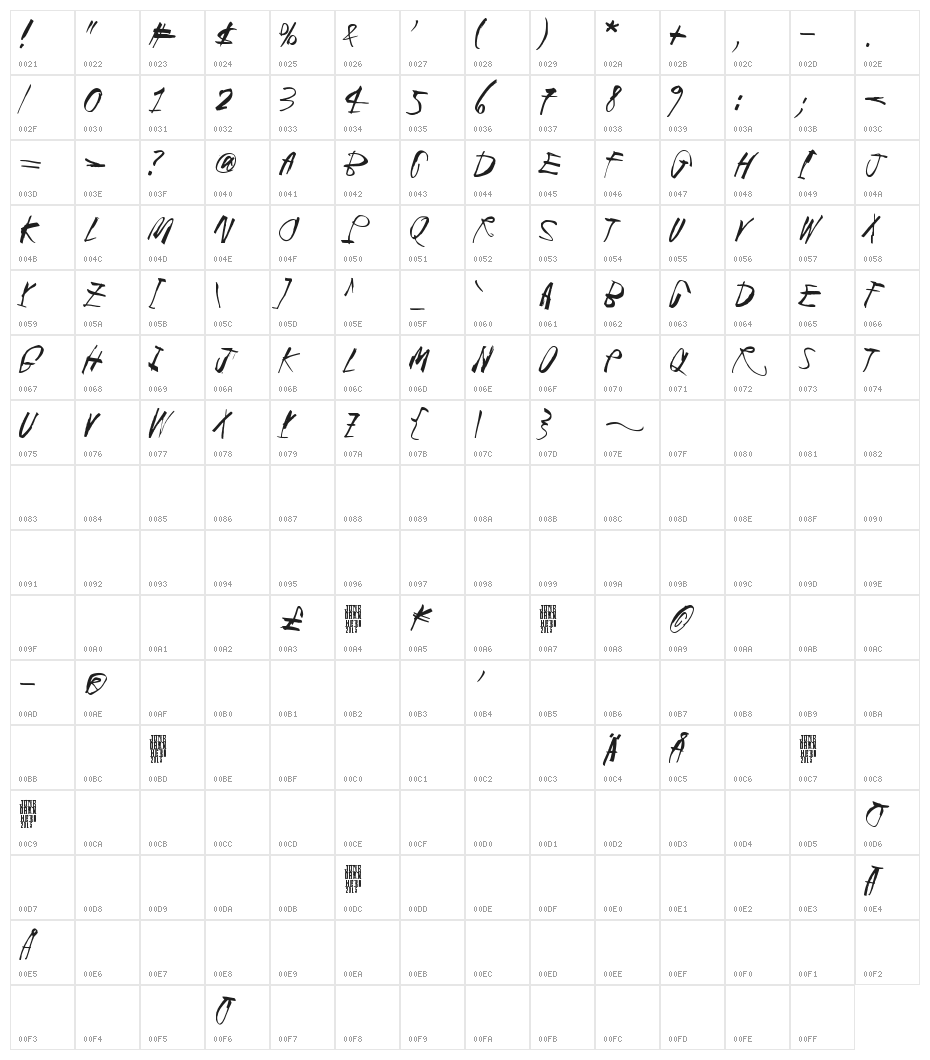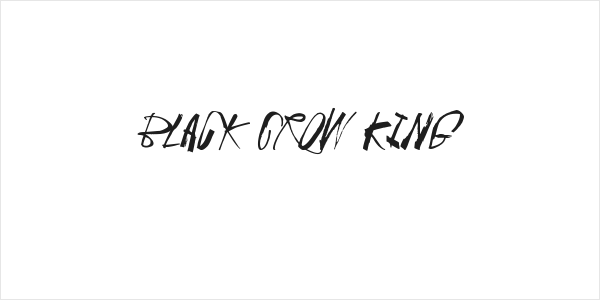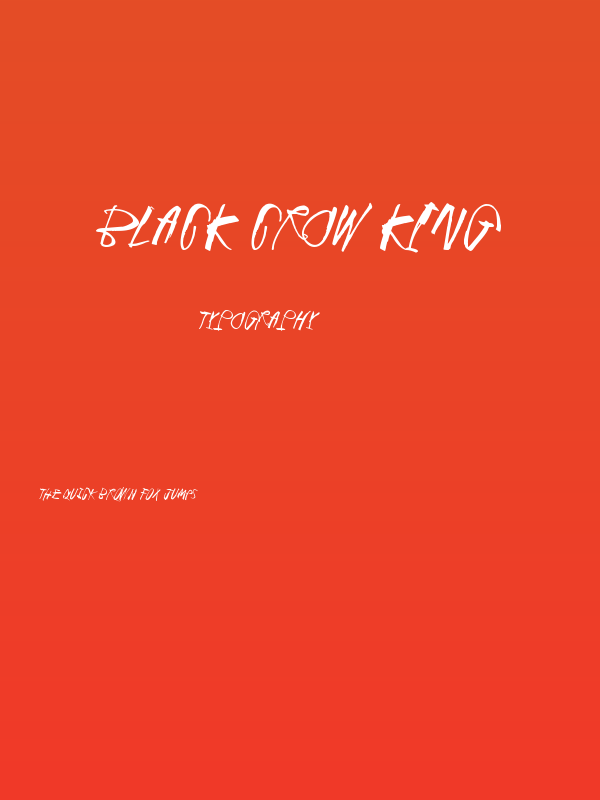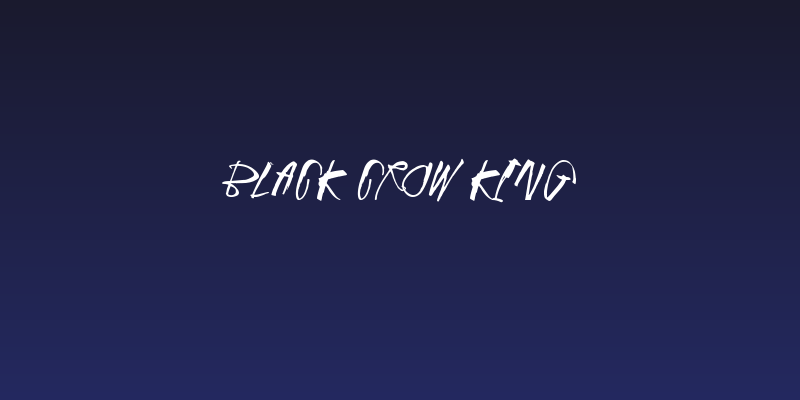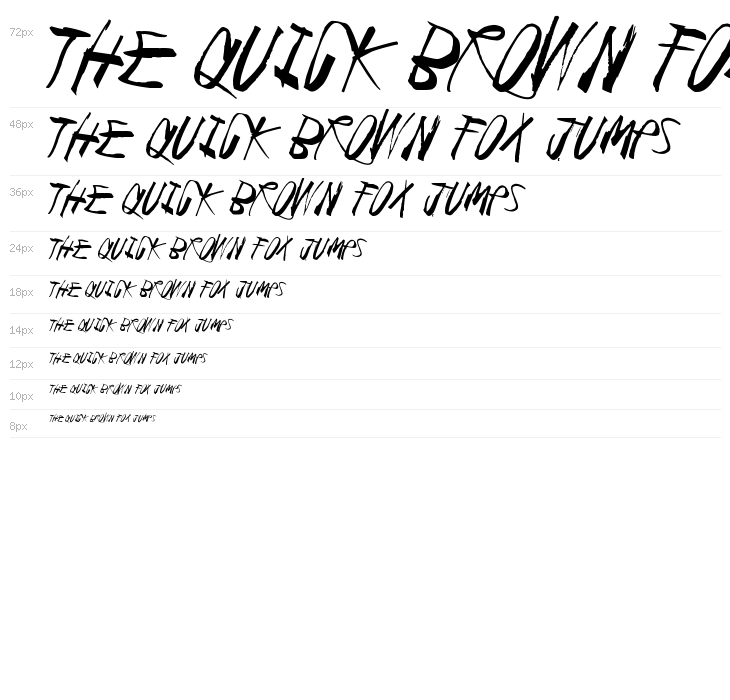
Black Crow King Font
Black Crow King Description
This font exudes a raw, edgy aesthetic with its bold, brush-like strokes and dynamic, irregular forms. Each character appears hand-drawn, conveying a sense of movement and energy. The uppercase letters are particularly striking, with exaggerated curves and sharp angles that create a sense of urgency and intensity. The lowercase letters maintain this expressive style, offering a cohesive look across the typeface. Numbers and special characters are equally bold, ensuring consistency throughout. This font is perfect for projects that require a strong, artistic statement, such as album covers, posters, or branding for creative industries.
| Overall Style | Modern, Artistic |
| Use Case | Headlines, Logos, Artistic Projects |
| Proposed Projects | Ideal for album covers, posters, and creative branding projects. |